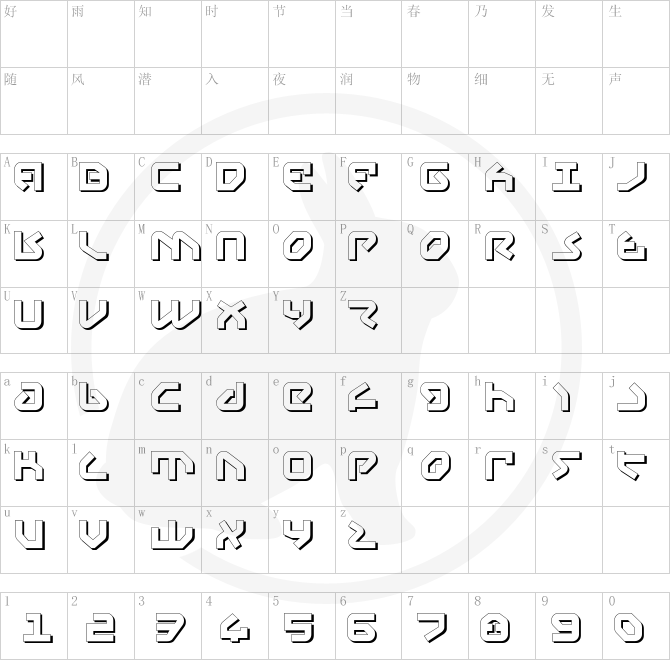
- Font Name:Yahren Shadow
Yahren-Shadow.ttf is a very beautiful artistic font, Yahren-Shadow.ttf is widely used in the design and printing of various books and pictures,Yahren-Shadow.ttf has a strong visual impact,Yahren-Shadow.ttf is a commonly used font in newspapers, magazines and books, and is used in posters, e-commerce Poster design, store design, logo design, font design and other fields.Yahren-Shadow.